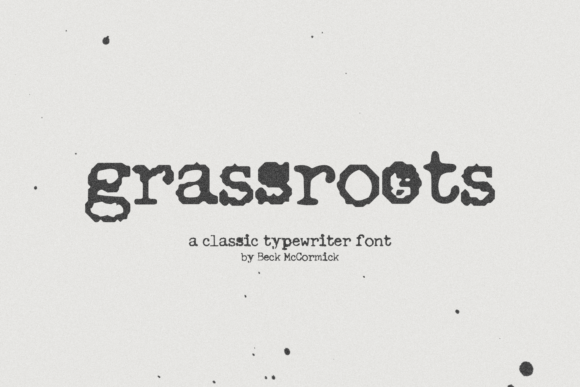
Introducing Grassroots Font, the ultimate choice for all your Cricut cutting needs! This remarkable serif font, created by the talented BeckMcCormick, brings back the nostalgia of classic typewriters, adding a touch of vintage charm to your projects. With its unique variations inspired by typewriter keystrokes, Grassroots Font offers a world of possibilities to customize and enhance the appearance of your text.
Every keystroke on an old typewriter leaves its mark, and Grassroots Font captures this essence flawlessly. The ink ribbon, the pressure of the typebars striking the ribbon and paper – all these factors contribute to the organic and authentic feel of this font. Embrace the imperfections and embrace the character that Grassroots Font adds to your designs.
What sets Grassroots Font apart from the rest is its versatility and attention to detail. Dive into a vast selection of letter options, each with its own distinctive texture. From lightly textured letters to gritty, inky variations, this font empowers you to create a truly unique visual experience. Let your creativity run wild as you explore the diverse range of styles and moods that Grassroots Font effortlessly portrays.
But that's not all – Grassroots Font goes the extra mile to ensure your convenience and ease of use. Thanks to its PUA encoding, accessing all the glyphs and swashes becomes a breeze. Say goodbye to tedious searching and hello to seamless customization. Unleash your artistic flair and effortlessly incorporate the perfect embellishments into your designs.
Whether you're a seasoned designer or a passionate hobbyist, Grassroots Font is the missing piece to elevate your Cricut cutting projects. Its timeless appeal and authentic typewriter aesthetic will captivate your audience, leaving a lasting impression. Stand out from the crowd with a font that exudes personality and charm.
In a world where creativity knows no bounds, Grassroots Font empowers you to differentiate yourself and make a statement. Break free from the mundane and embrace the extraordinary. Let your imagination flourish and watch as Grassroots Font breathes life into your designs.